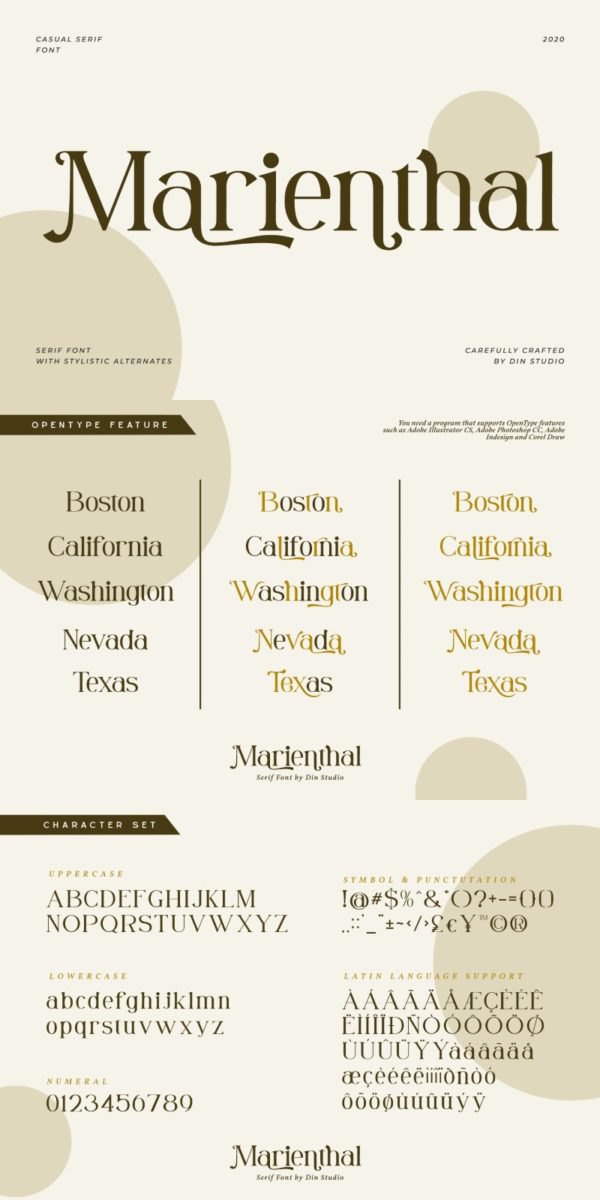
Marienthal Font
About Marienthal
Marienthal – Casual Serif Font. Made for any professional project branding. It is the best for branding, printing, wedding and quotes. Every letter has a unique and beautiful touch. See the previews above to get some inspiration on how you can use them. Happy Designing!
- Beautiful Ligatures
- Many Swashes
- Numerals and Punctuation